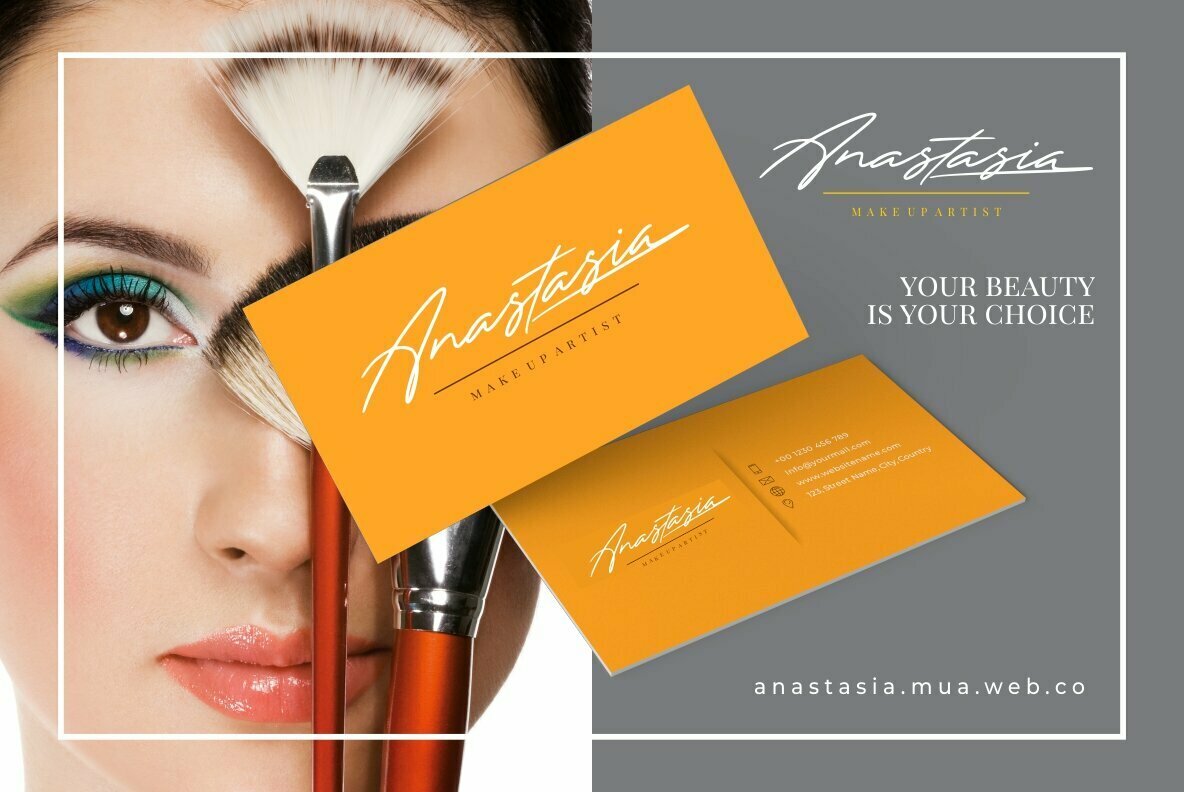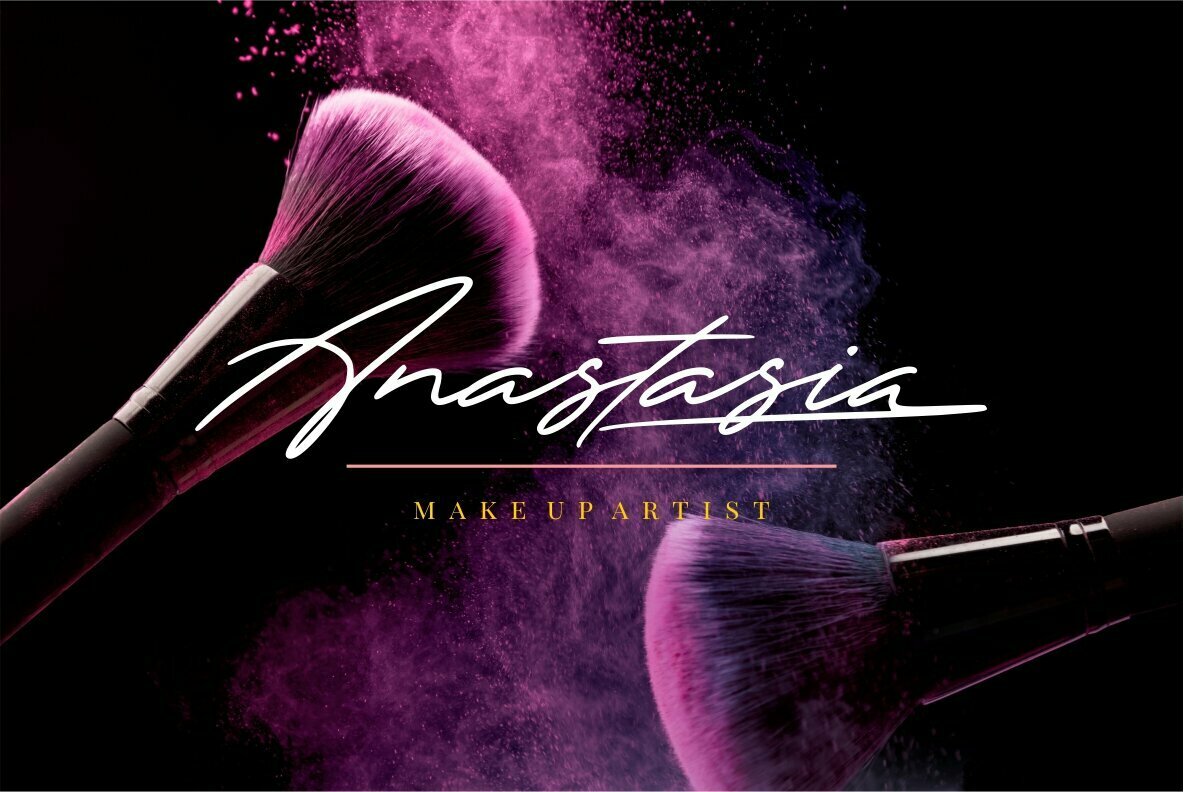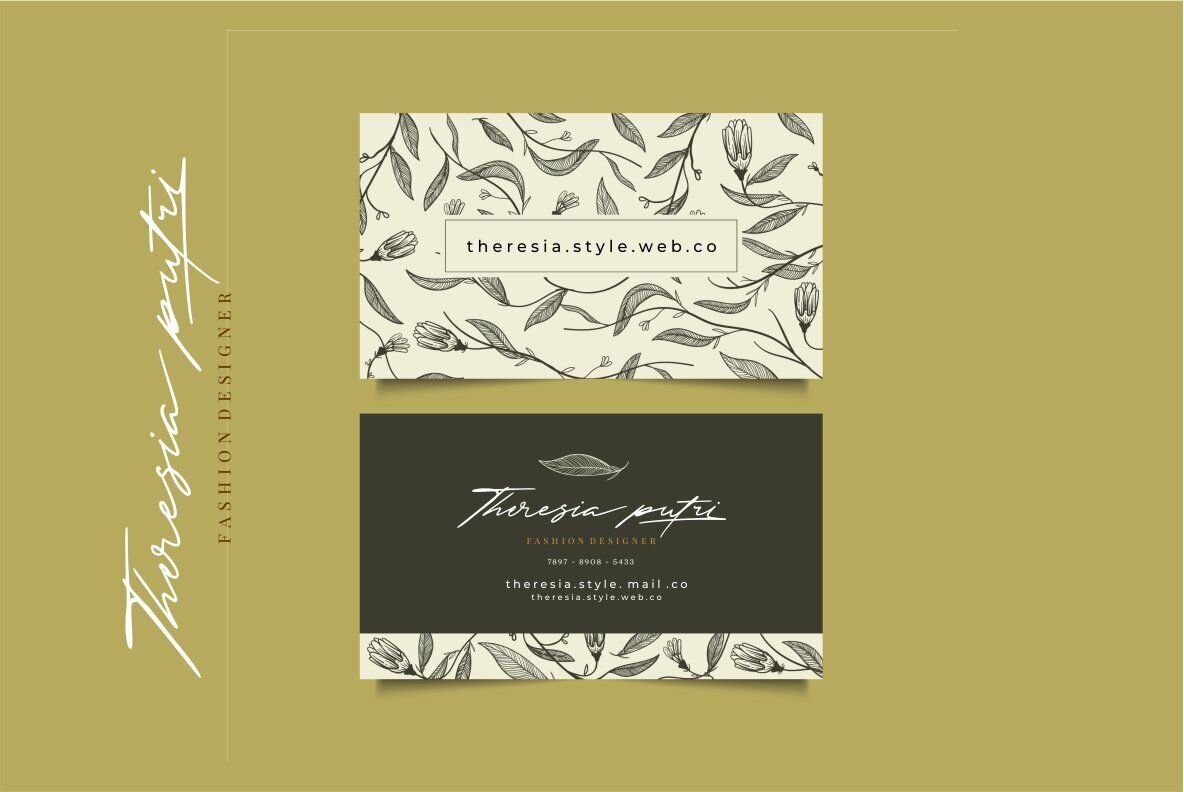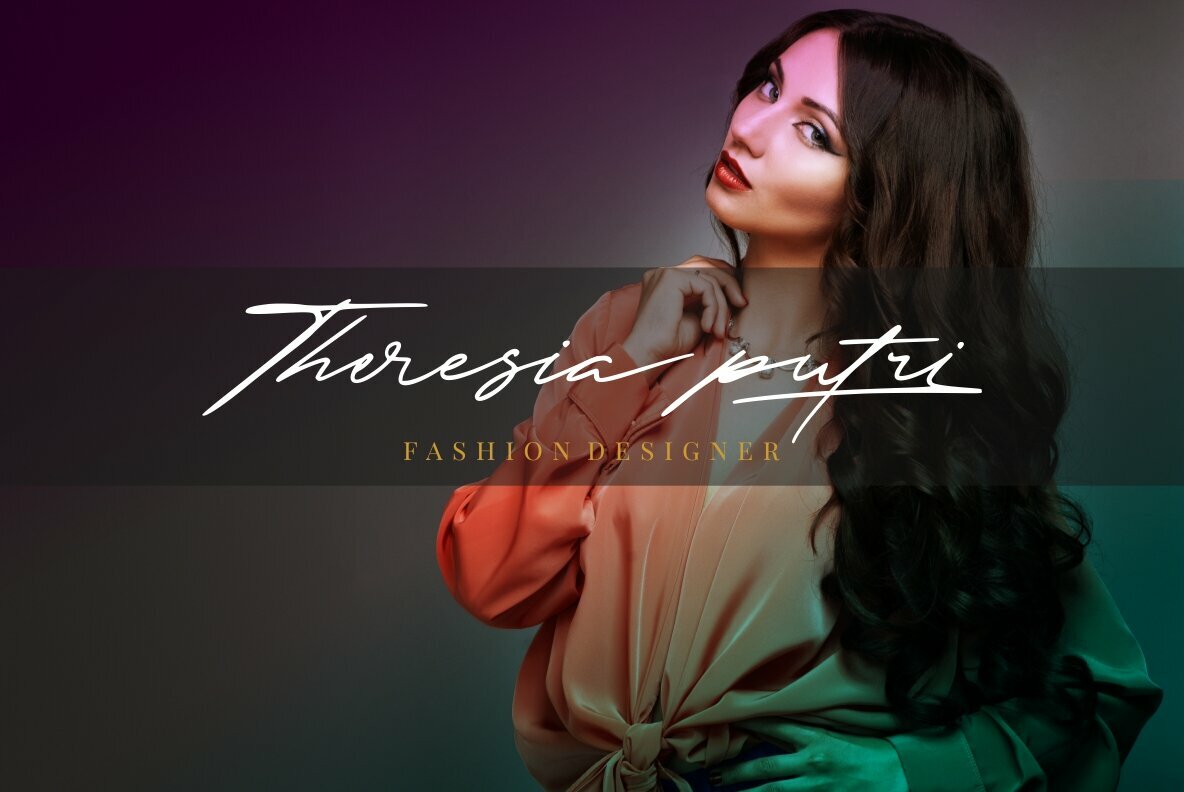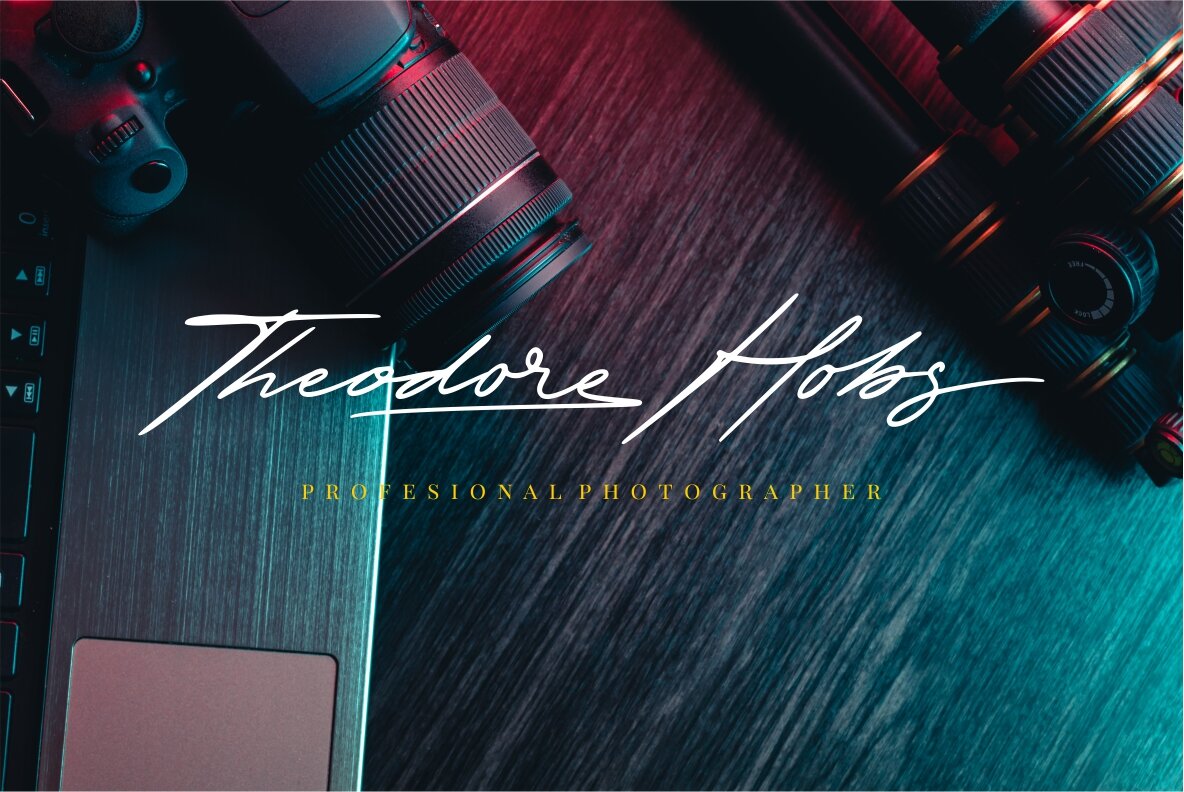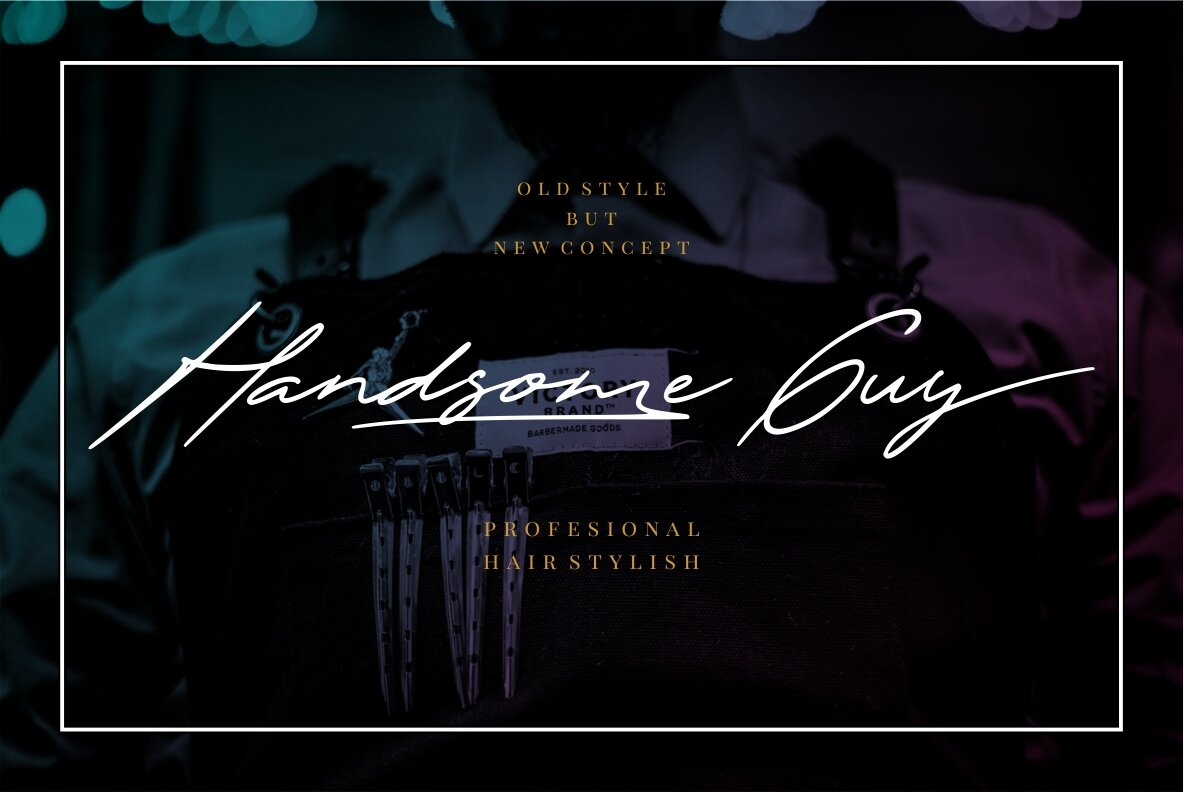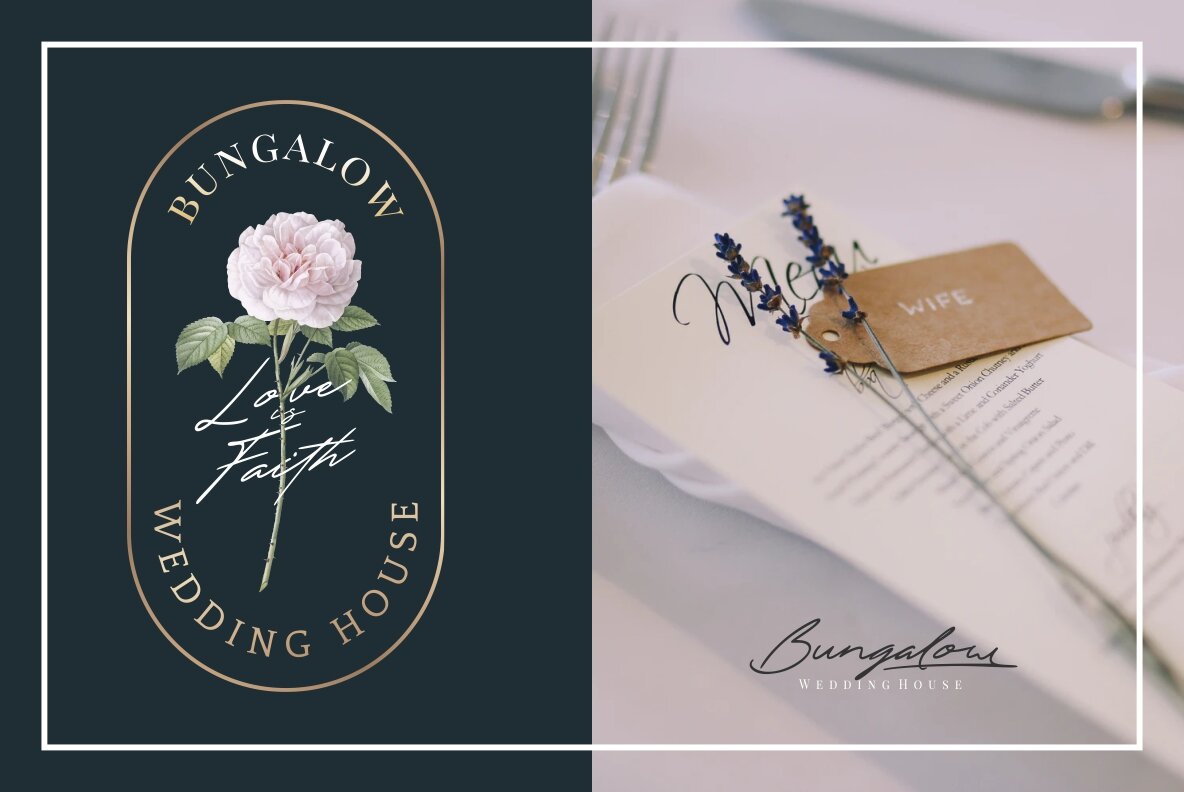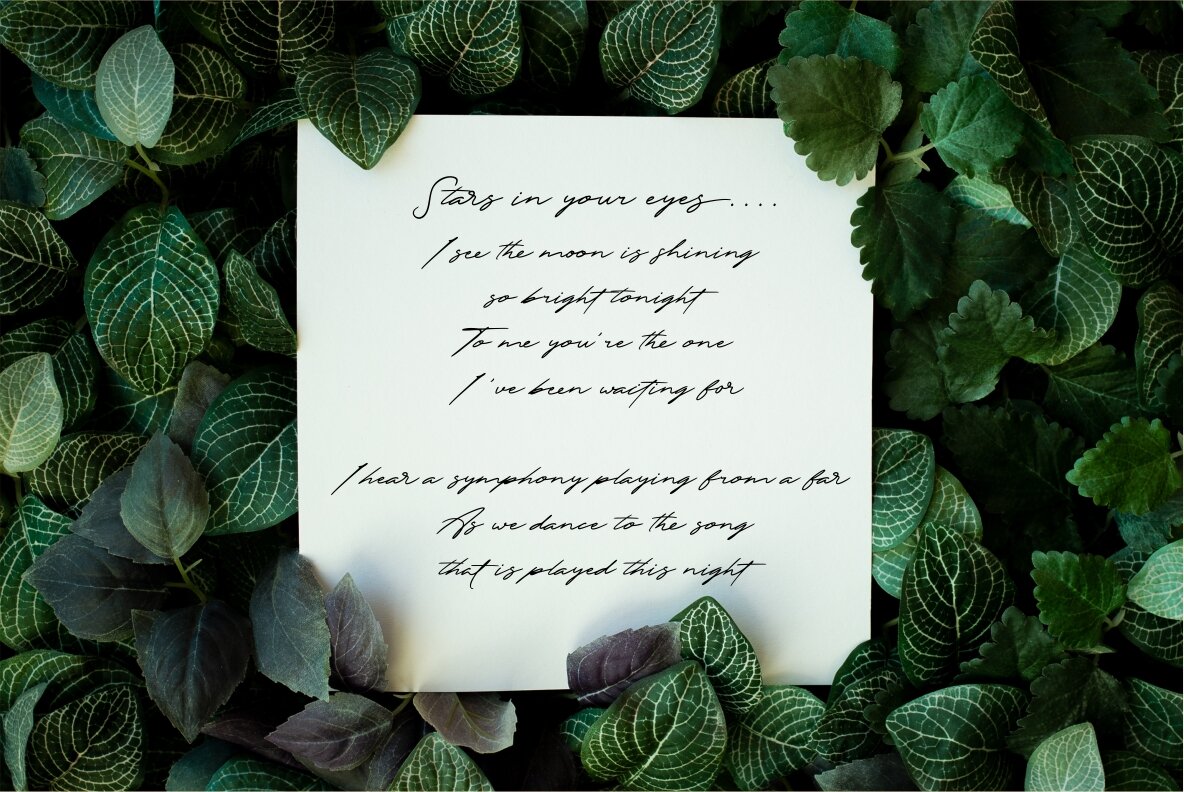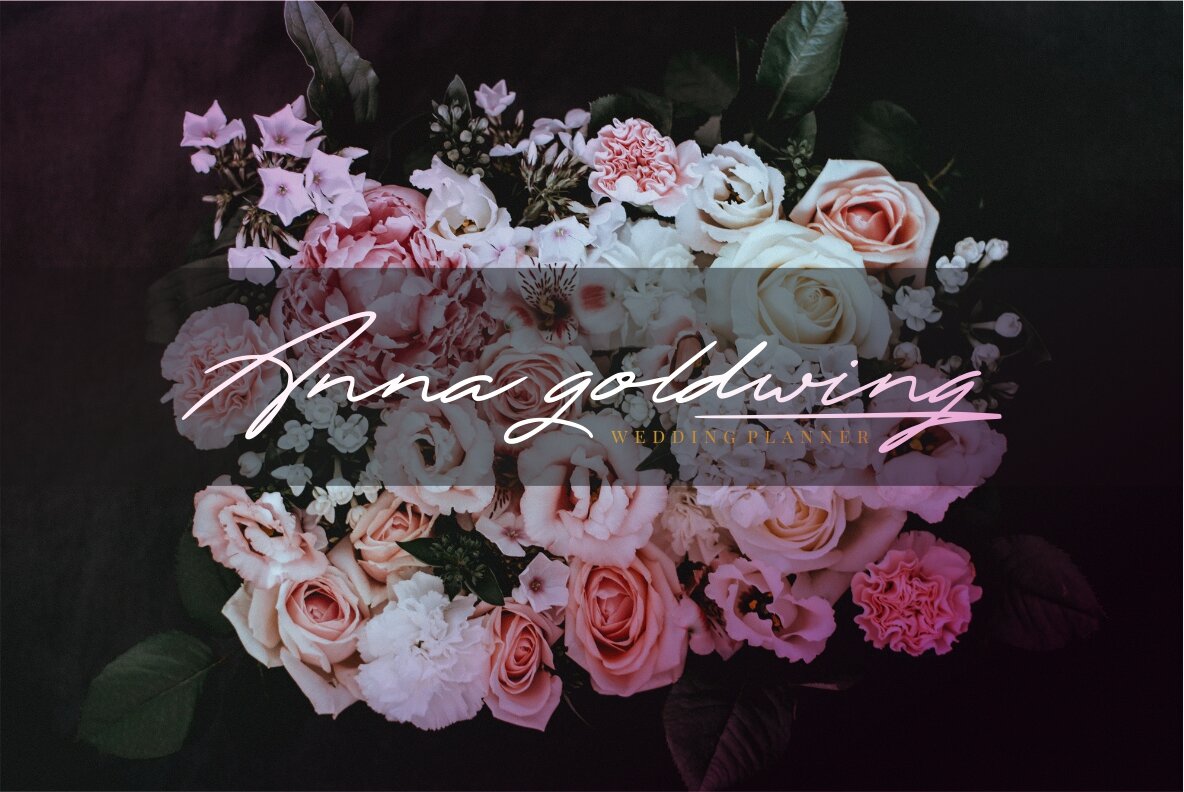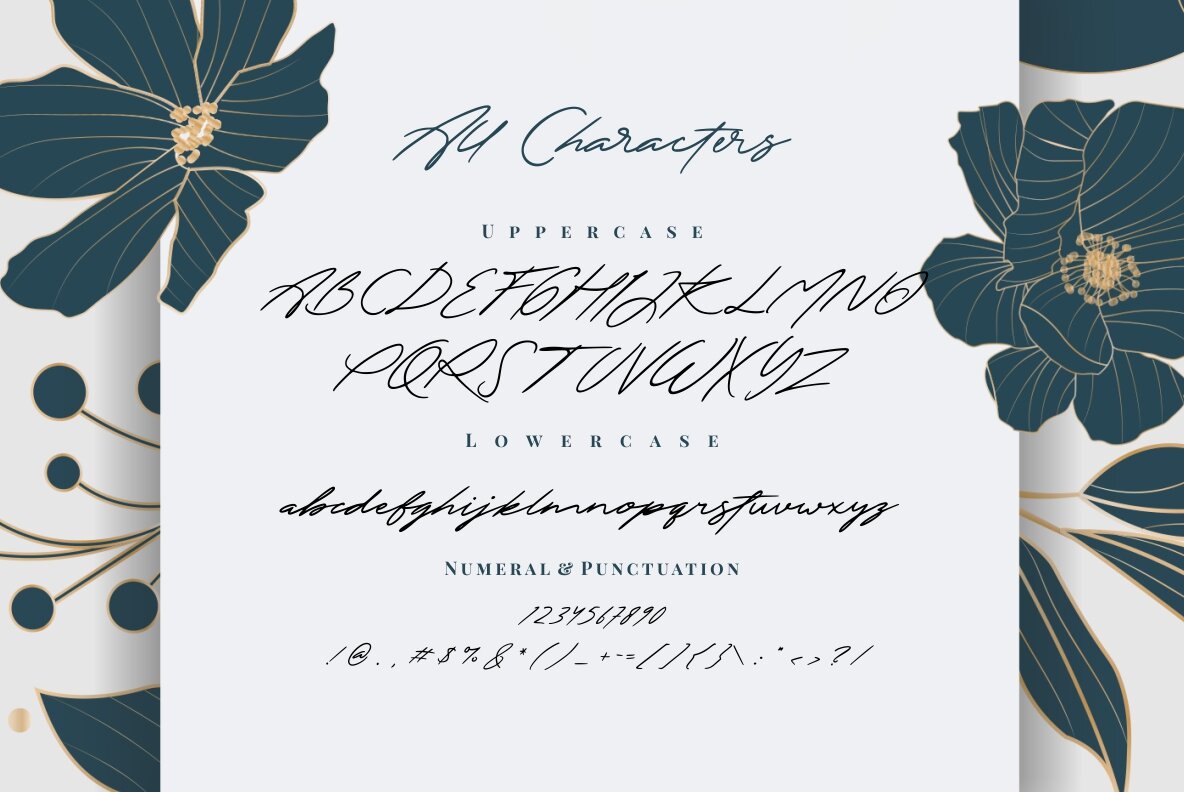
The Excited Font
The Excited
The Excited typeface is a handwritten signature font that exudes a natural, classy flow. Its graceful curves and sophisticated style make it an ideal choice for any project seeking a touch of elegance. Perfect for a wide range of applications, The Excited works seamlessly in signatures, headings, covers, branding initiatives, and invitations. It also enhances labels, posters, logos, quotes, product packaging, headers, merchandise, social media posts, greeting cards, and much more. Features: For those wishing to access its alternate glyphs, ensure use of design software supporting OpenType features, such as Adobe Illustrator CS, Adobe Photoshop CC, Adobe InDesign, or Corel Draw.The Excited: A Flowing Handwritten Typeface